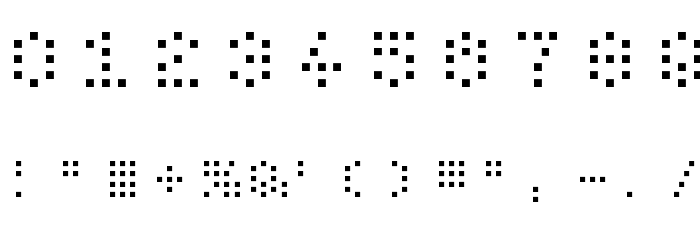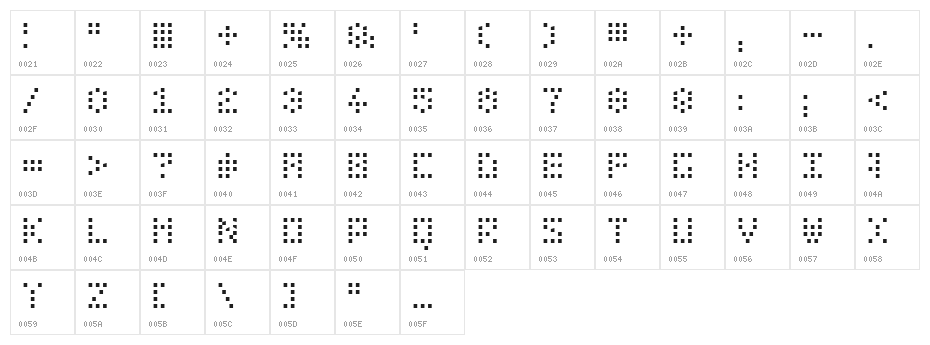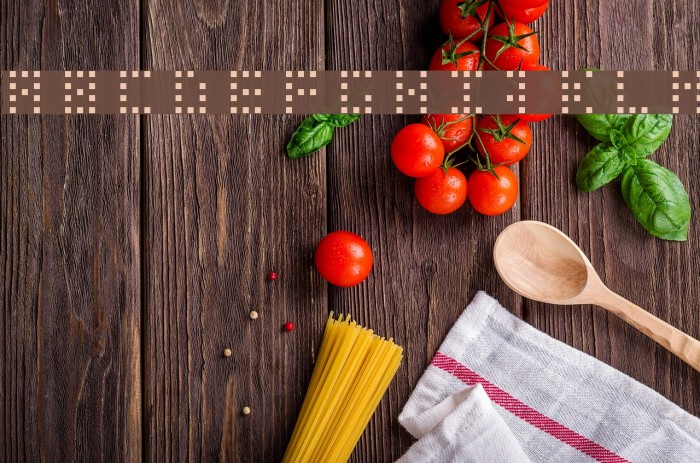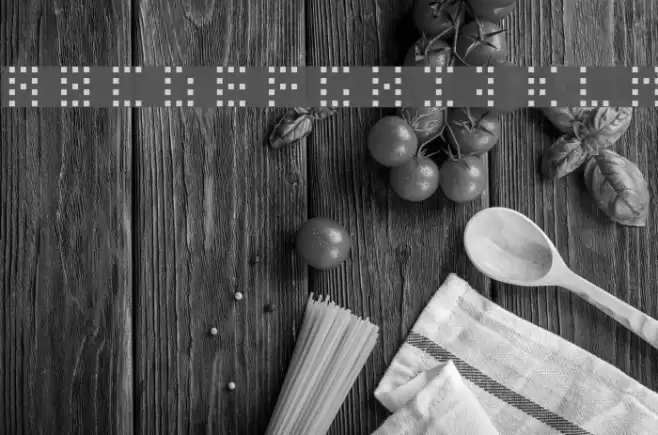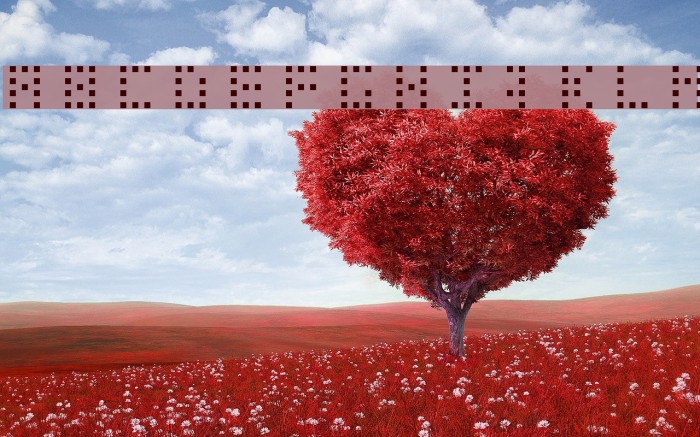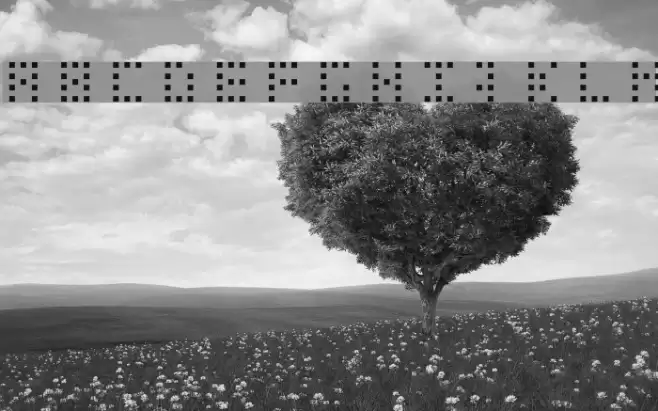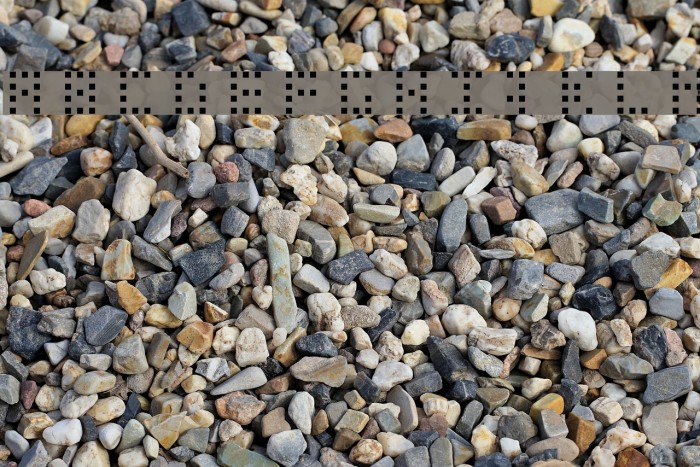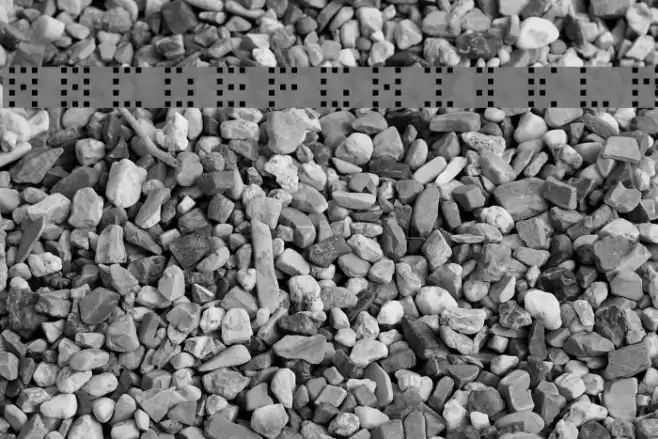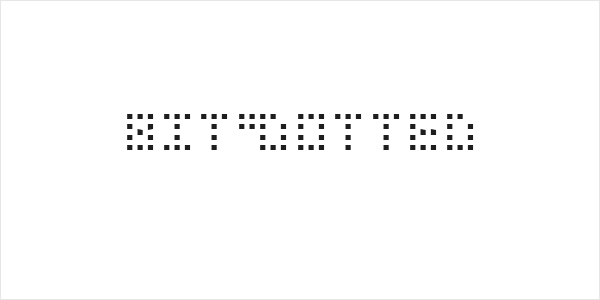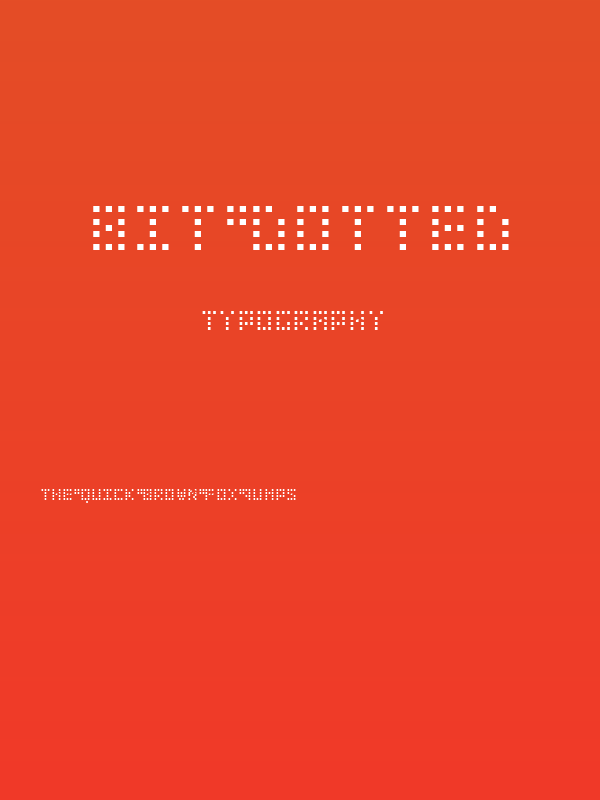
Bit Dotted Font
Bit Dotted Description
This font features a unique dotted pattern, creating characters entirely from a grid of small, evenly spaced dots. The design is highly geometric, with each letter and number maintaining a consistent size and shape. The uniformity of the dots gives the font a digital, pixelated appearance reminiscent of early computer displays or LED screens. Despite its unconventional style, the characters remain easily recognizable and legible. The font includes a full set of uppercase and lowercase letters, numbers, and a selection of special characters, all adhering to the same dotted motif.
| Use Case | Logos, Headlines, Digital Art |
| Proposed Projects | Ideal for digital art projects, retro-themed designs, tech-related branding, or any creative work requiring a futuristic or digital aesthetic. |